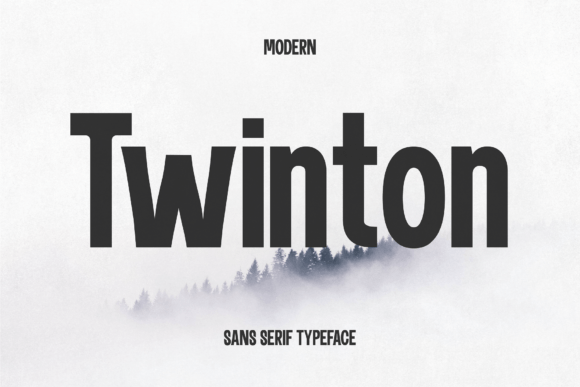
**Introducing Twinton: The Ultimate Display Font for Captivating Creations**
Discover Twinton, a stunning display font that will transform your designs into mesmerizing masterpieces. Its sleek and sophisticated character exudes an air of elegance, making it the perfect choice for branding, captivating headlines, fashion statements, eye-catching thumbnails, and engaging social media posts.
Twinton's clean lines and minimalist aesthetic create an instant visual impact that commands attention. Whether you're designing posters, covers, or any other creative project, Twinton's versatility knows no bounds.
But it's not just about aesthetics; Twinton is also meticulously crafted for optimal legibility. Its carefully designed characters ensure that your message is conveyed clearly and effortlessly, even at smaller sizes.
With Twinton, you can unleash your creativity and create designs that will make a lasting impression. Its timeless appeal and adaptability make it a must-have for any designer's arsenal.